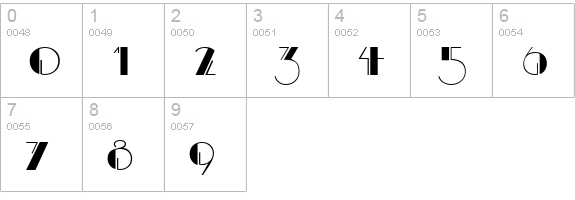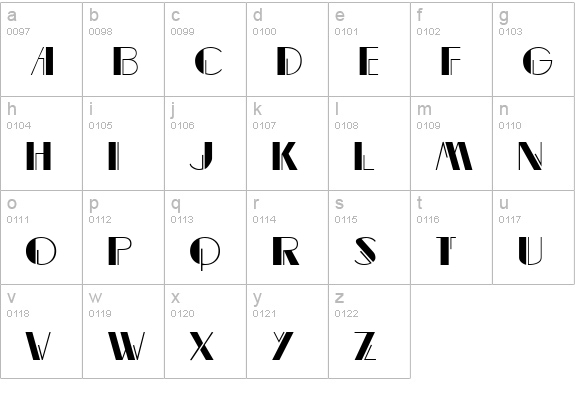
MarqueeMieux Regular Font Details
MarqueeMieux Regular is the standard, neutral variant in the MarqueeMieux typeface family \xE2\x80\x94 well suited to general body text, paragraphs, and standard typographic work.
Introducing MarqueeMieux Regular, a captivating and versatile font that will add a touch of elegance and sophistication to any design project. With its clean lines and modern look, this font is perfect for both headings and body text, making it suitable for a wide range of applications, from branding and advertising to website design and print materials. MarqueeMieux Regular offers a unique blend of classic and contemporary elements, making it a truly timeless typeface. Its carefully crafted letterforms exude confidence and professionalism, while its slight curves and subtle details add a touch of warmth and personality. Whether you're creating a logo, designing a poster, or crafting a stylish invitation, MarqueeMieux Regular will effortlessly elevate your work to new heights. One of the most remarkable aspects of MarqueeMieux Regular is that it is available free of charge. Yes, you read that right! This exceptional font can be freely downloaded at FontsMarket.com, allowing designers and enthusiasts alike to easily access its beauty and functionality. With just a few clicks, you can bring this font into your creative arsenal, ready to be utilized in any project that demands a touch of sophistication and style. MarqueeMieux Regular is designed with readability in mind, ensuring that your message is conveyed effortlessly to your audience. Its balanced proportions and well-defined characters make it a joy to read, whether in large headlines or small paragraphs. No matter the context, this font effortlessly captures attention and leaves a lasting impression. So why wait? Unlock the potential of your designs and elevate them to a new level with MarqueeMieux Regular. Download this remarkable font for free at FontsMarket.com and let your creativity soar. With MarqueeMieux Regular by your side, your designs will stand out from the crowd and leave an indelible mark on the world.